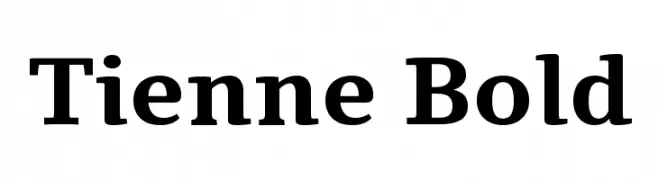
A bold, classic serif font with strong strokes and sharp serifs.
A bold, classic serif font with strong strokes and pronounced serifs.
A bold serif font with strong strokes and pronounced serifs, ideal for authoritative and traditional designs.
A classic serif font with elegant, well-defined serifs and moderate contrast.
A bold, impactful typeface with thick, rounded characters and high contrast.
A classic serif font with moderate contrast and elegant readability.
A bold, strong font with thick strokes and a commanding presence.